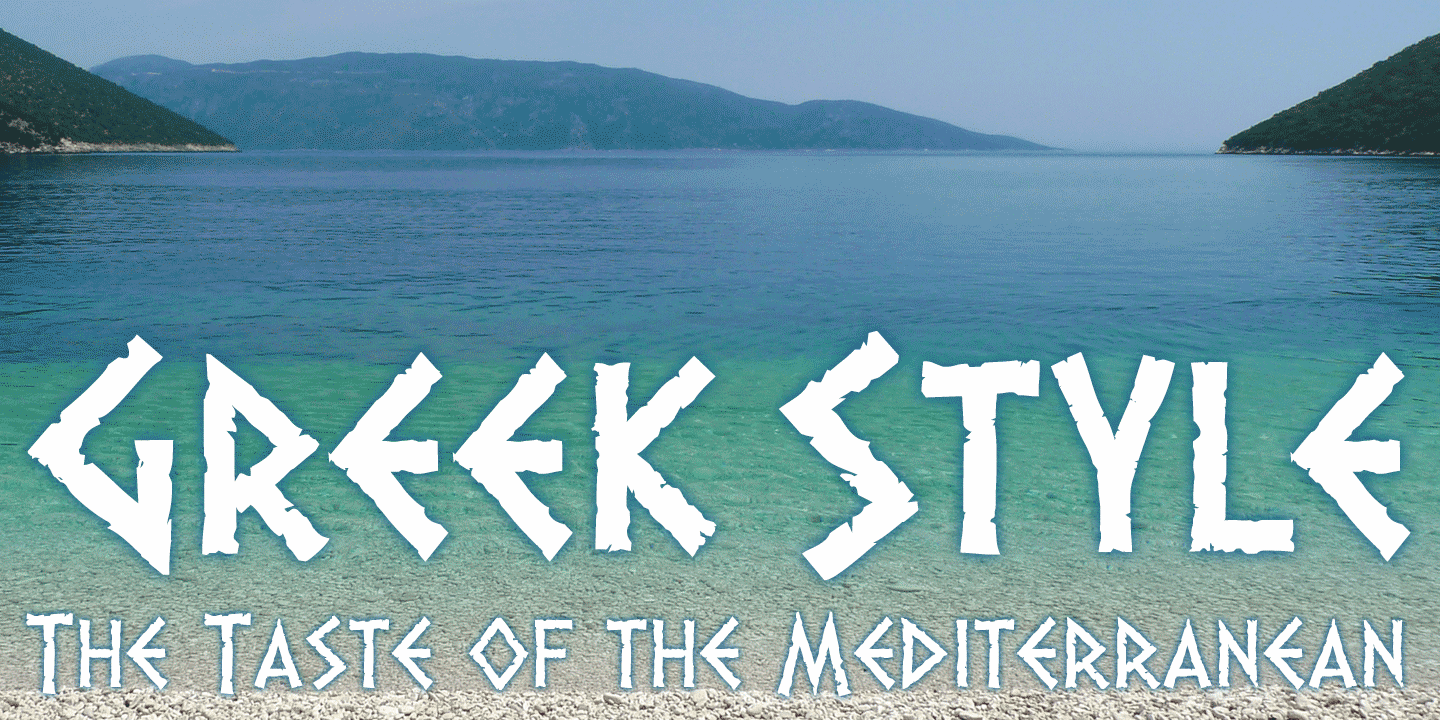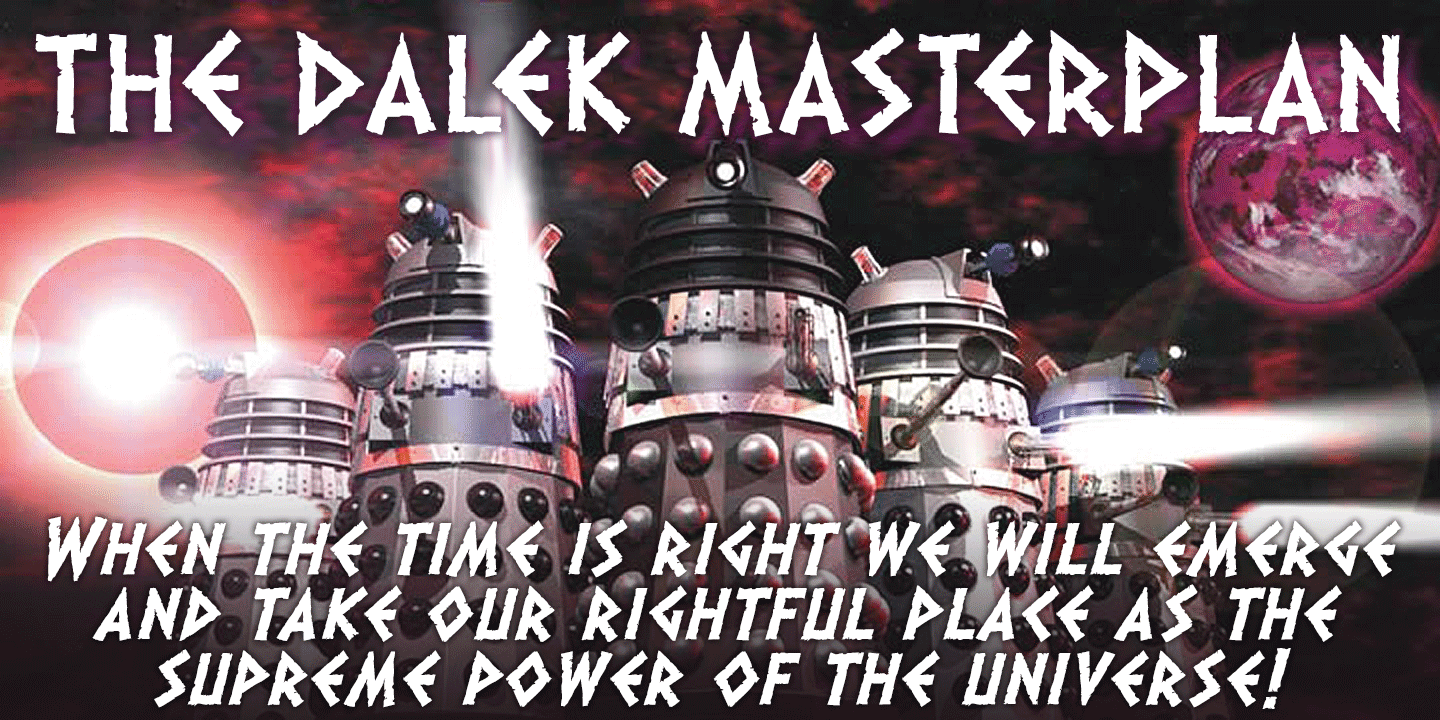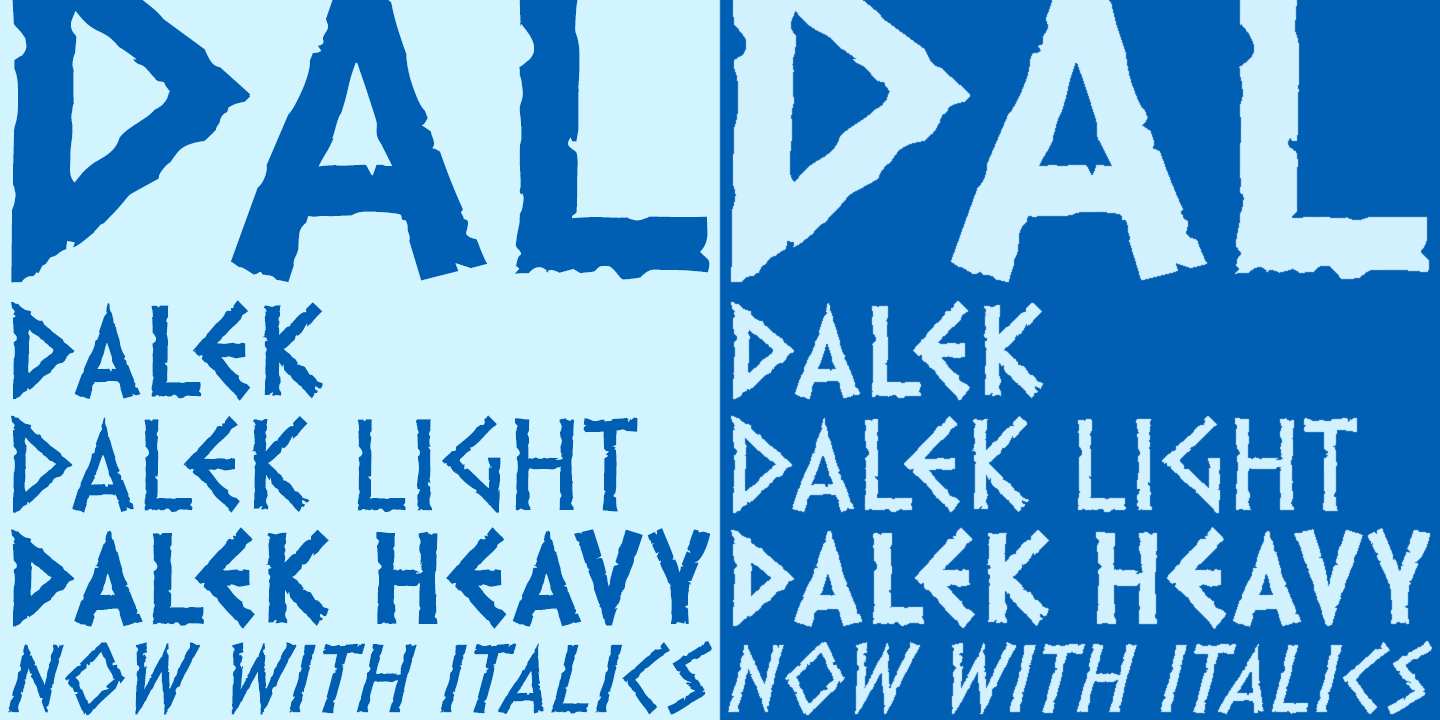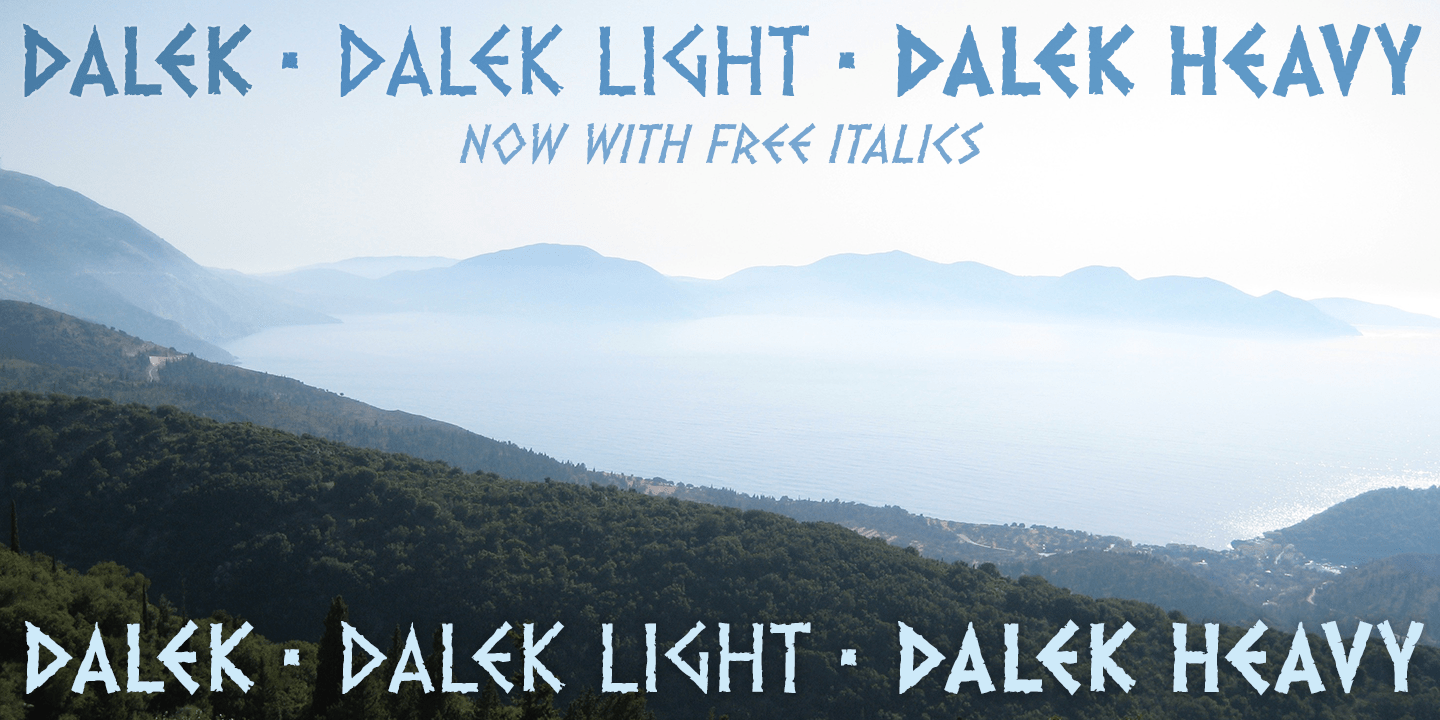
About Dalek
Dalek is a distressed, small caps typeface based on the lettering used in the Dalek Book of 1964 and in the Daleks strip in TV21 comic. The fonts have overtones of Greek, Phoenician and Runic alphabets. Choose between three weights – Regular, Heavy or…